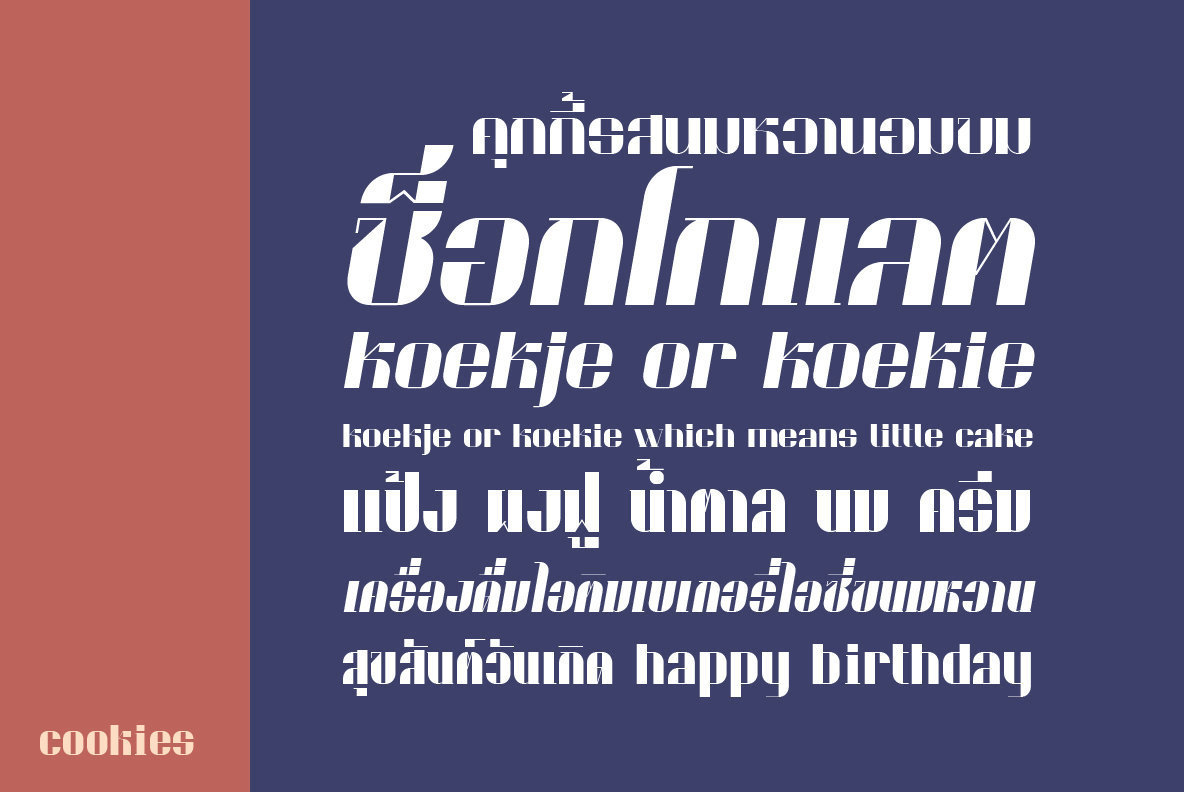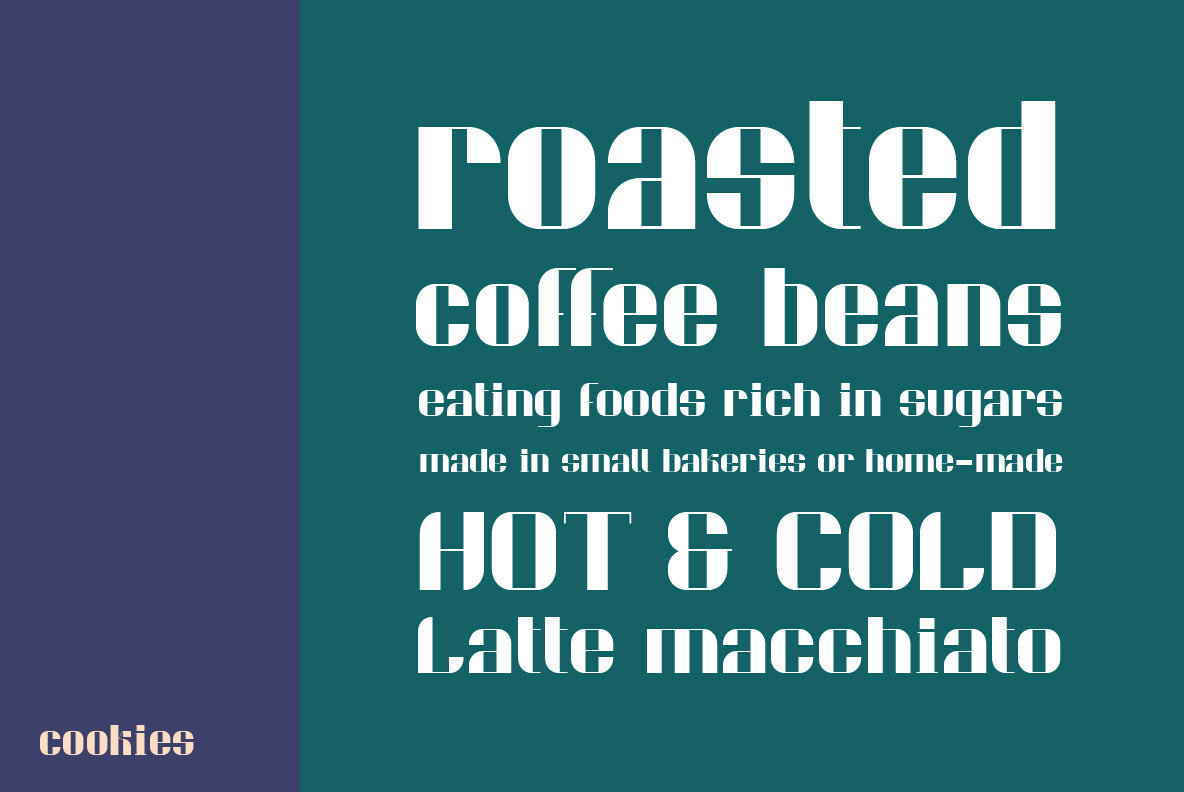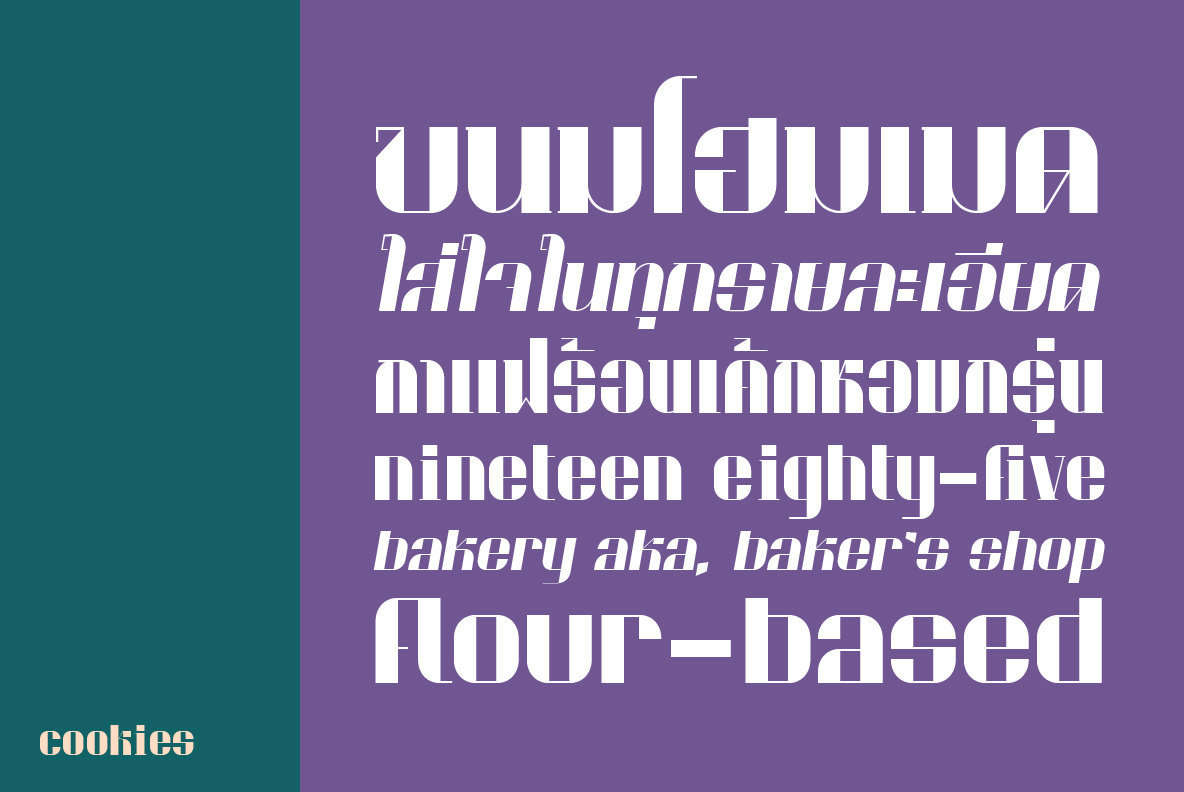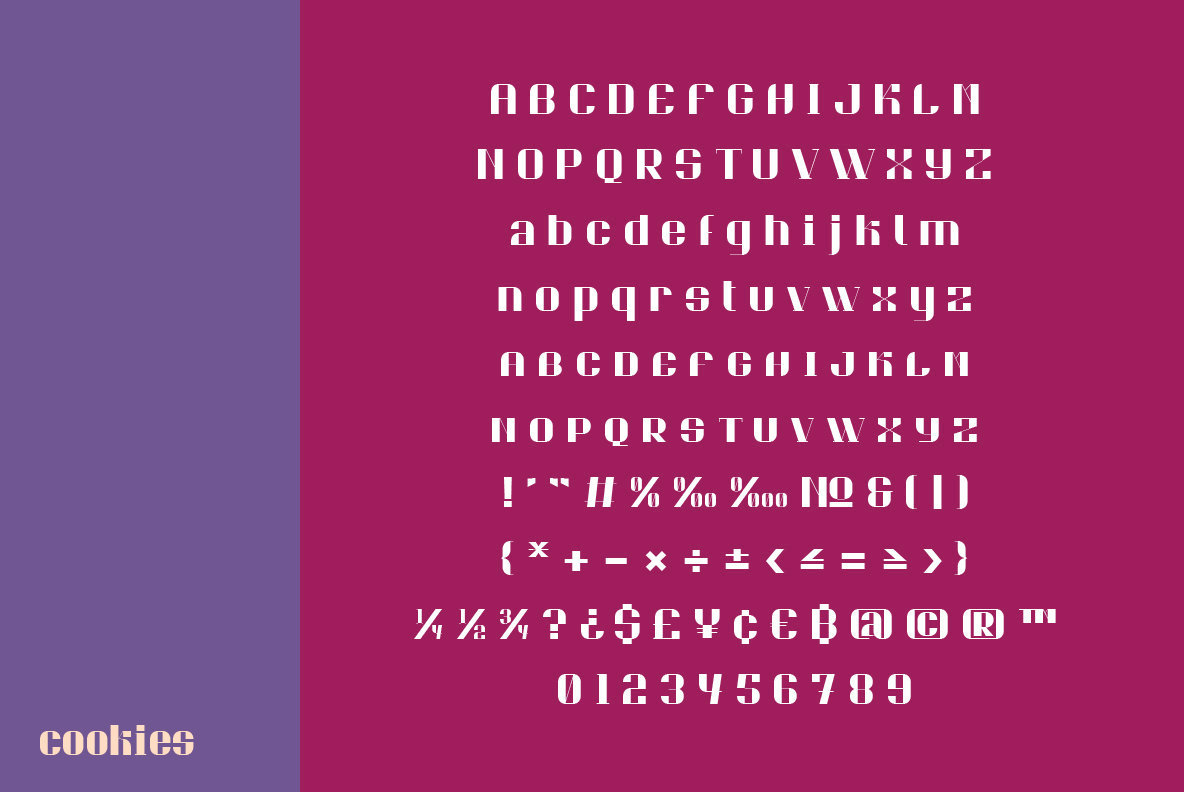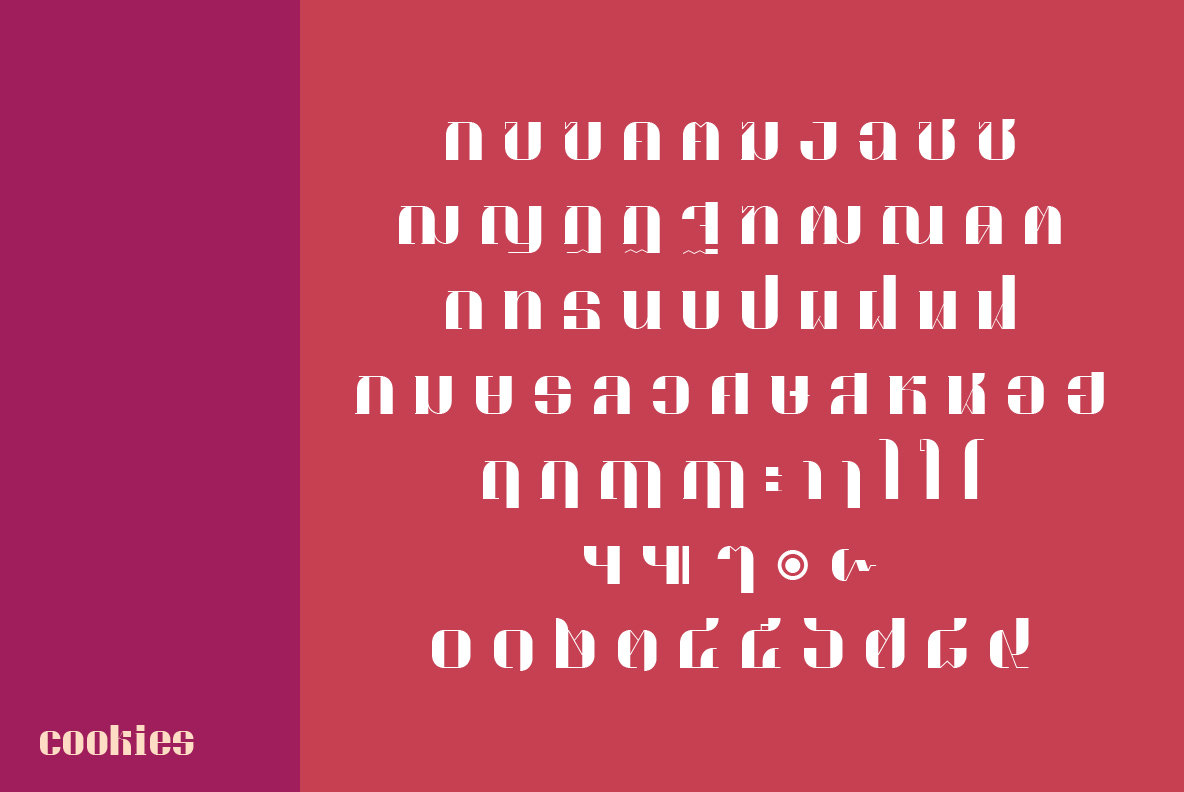
cookies Font
Cookies is a sweety decorative typeface that includes two weight [regular and condensed]. Cookies comes with OT features and support for Thai language.